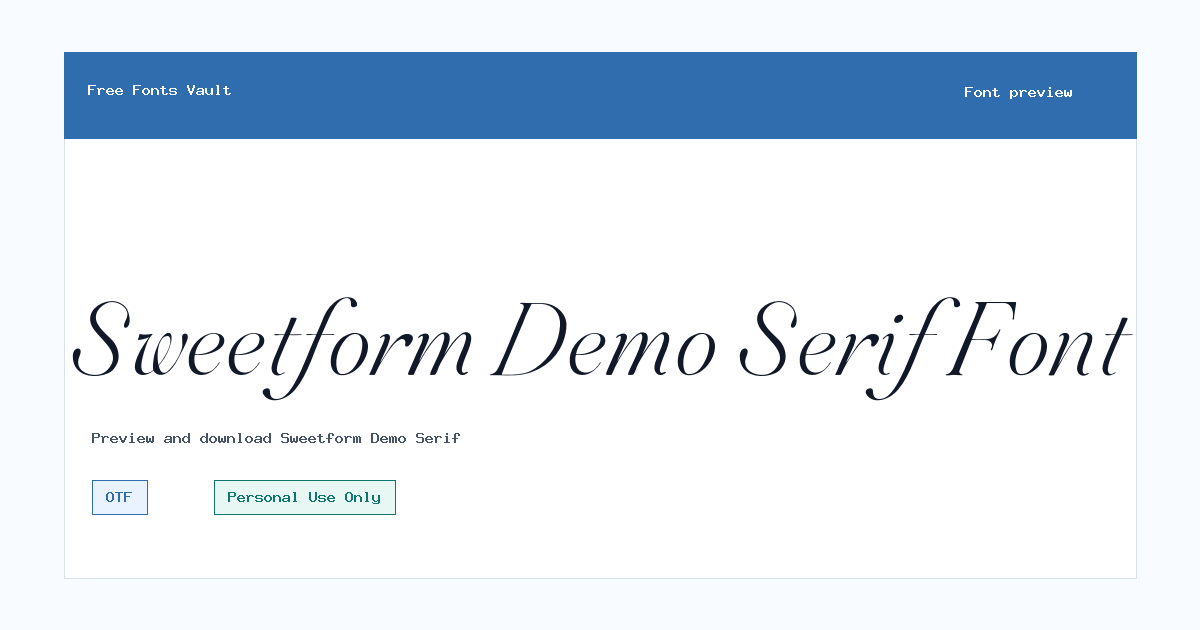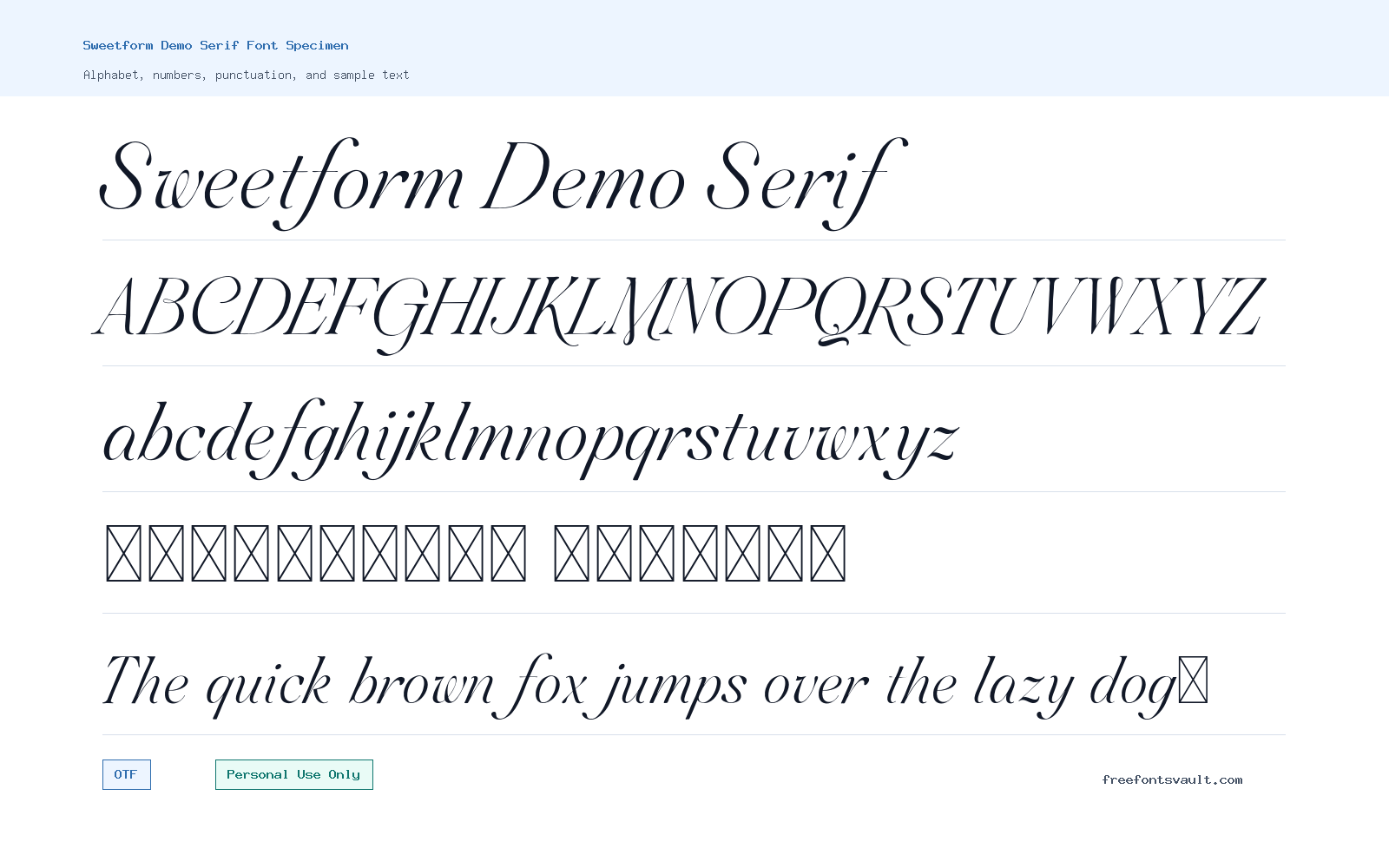
Sweetform Demo Serif
Sweetform Demo Serif is a regular OTF serif font from VPfonts, offered for personal use. It works best when you want a clean display typeface for short words, titles, logo drafts, posters, and visual mockups rather than long reading text.
About Sweetform Demo Serif
Sweetform Demo Serif is part of the Sweetform Font Duo family name, with the serif style giving the design a more editorial and polished direction. The available file is an OTF regular style at normal weight, so it is easy to install and test in common design apps. Use it for display settings where the letter shapes can be seen clearly: brand-name sketches, invitation headings, packaging mockups, social graphics, quote cards, and poster titles. Because this is a demo serif font, keep your expectations practical: it is better for previewing the look and building personal concepts than for assuming a complete production-ready family.
For logo work, Sweetform Demo Serif can help you explore a softer, boutique-style wordmark without jumping straight into custom lettering. Try it in all-lowercase, title case, and all-caps if the font supports the characters you need, then compare spacing carefully. Serif display fonts often need manual kerning in logos, especially around round letters, diagonals, and pairs like “VA,” “To,” or “ry.” For posters and web mockups, give the font enough space and contrast. It can look more refined when paired with a quiet sans serif for menus, body text, captions, or supporting details. Avoid using it for long paragraphs until you test readability at the final size.
- Serif display style suited to short text, headings, wordmarks, posters, and personal design drafts.
- Part of the Sweetform Font Duo naming shown on font download references, with Sweetform Serif and Sweetform Sans mentioned together.
- Logo concepts and wordmark exploration
- Brand identity mockups
- Packaging or label drafts
- Invitation headings and quote graphics
- Website hero text in mockups
- Pinterest pins and social media design concepts
- Personal projects, moodboards, and typography studies
What is Sweetform Demo Serif best used for?
It is best for short display text such as logo drafts, poster titles, packaging mockups, invitations, quote graphics, and brand concept work.
Is this a good font for paragraphs?
It is better treated as a display font. Use it for headings or short phrases, then pair it with a simpler font for longer text.
What should I pair with Sweetform Demo Serif?
Pair it with a clean sans serif for body text, navigation, captions, and layout details. Keep the supporting font simple so the serif style remains the focus.